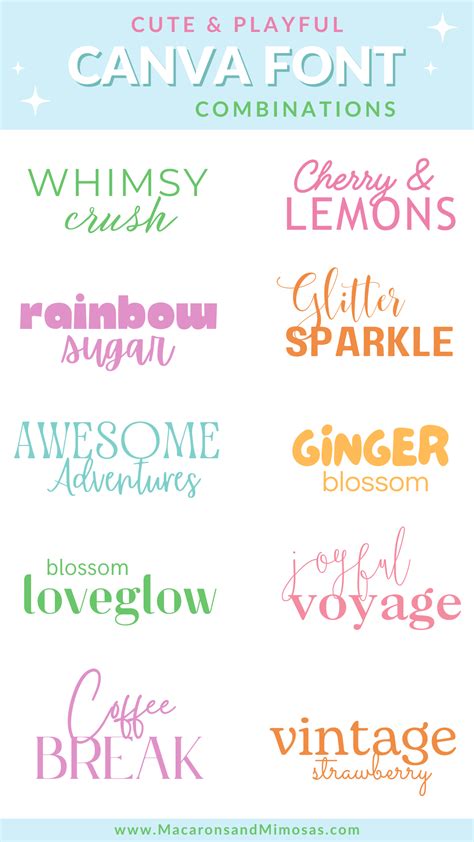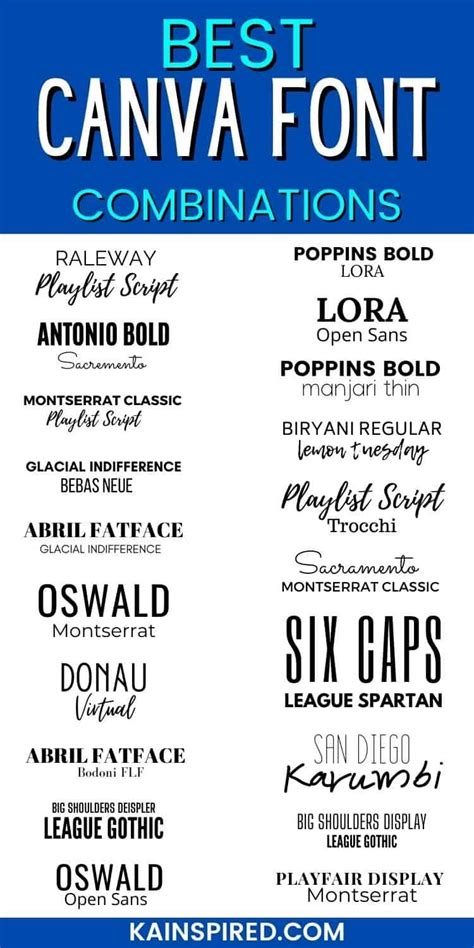
Best Canva Fonts Combinations For Stunning Designs
Readers, have you ever struggled to find the perfect font combination for your Canva designs? Choosing the right fonts can make or break a design, adding visual appeal and conveying the right message. But with so many options available, it can be overwhelming to know where to start.
Don't worry! We've analyzed countless Canva fonts and have the perfect combinations for you. We'll unlock the secrets to crafting stunning designs with the most compelling font pairings.
The Power of Canva Fonts: Unlocking Visual Harmony
Canva offers a vast library of fonts, categorized by style, weight, and character. Each font tells a unique story, impacting how viewers perceive your design. To create a visually captivating experience, you need to understand the language of fonts and pair them strategically.
Choosing the Right Font Combinations
Choosing the right font combination is essential to a balanced and cohesive design. Fonts speak volumes about your design’s personality and tone. Consider your target audience and the message you want to convey to select the right font pairs.
For instance, if you're designing a promotional poster for a tech event, a modern sans-serif font like Open Sans paired with a bold, geometric typeface like Roboto Slab can communicate innovation and tech-savvy.
Conversely, if you're creating a wedding invitation, an elegant serif font like Garamond with a flowing script font like Pacifico can exude romance and charm.
Understanding Font Types
Canva offers a wide variety of fonts, categorized into font families with distinct characteristics. Here are some key font types to consider:
- Serif Fonts: These fonts have small decorative strokes (serifs) at the ends of letter strokes. They generally convey a sense of tradition, elegance, and formality. Examples include Times New Roman, Garamond, and Georgia.
- Sans-serif Fonts: These lack the serifs, resulting in clean, minimalist designs. They often signify modernity, simplicity, and clarity. Examples include Arial, Helvetica, and Open Sans.
- Script Fonts: These fonts mimic handwritten calligraphy styles. They convey an air of elegance, sophistication, and personality. Examples include Pacifico, Lobster, and Allura.
- Display Fonts: These fonts are designed for large headlines or titles, often with dramatic flourishes and bold strokes. They add impact and evoke a strong visual presence. Examples include Bebas Neue, Impact, and Playfair Display.
Best Practices for Canva Font Combinations
Here are some best practices to keep in mind when pairing Canva fonts:
- Contrast: Create visual interest by pairing contrasting font types, like a serif with a sans-serif. This creates a balanced and harmonious design.
- Hierarchy: Establish a clear visual hierarchy by using different font sizes and weights to emphasize key elements. Larger, heavier fonts are typically used for headlines, while smaller, lighter fonts work well for body text.
- Readability: Prioritize readability. Ensure that your font combinations are easily readable, especially for body text. Avoid overly decorative or ornate fonts that can strain the reader's eyes.
- Experiment: Don't be afraid to experiment! Canva allows you to preview different font combinations directly on your design.
Essential Canva Font Combinations
Now, let's delve into some of the best Canva font combinations that are sure to elevate your designs:
Classic Elegance
For a timeless and sophisticated look, pair a classic serif font like Garamond with a modern sans-serif font like Roboto. This combination exudes elegance while maintaining a touch of contemporary flair.
Use Garamond for your headlines and Roboto for body text to create a balanced design. This classic pairing works well for invitations, brochures, and marketing materials.
Modern Minimalism
If you're going for a clean and contemporary aesthetic, Open Sans paired with Poppins is a winning combination. Both fonts are known for their readability and versatility, making them perfect for websites, social media graphics, and presentations.
Use Open Sans for larger headlines to create a bold statement, and Poppins for body text to maintain a clean and modern look.
Bold and Playful
For designs that demand attention, Bebas Neue paired with Playfair Display is a dynamic choice. Bebas Neue's bold, geometric style adds impact to headlines, while Playfair Display's elegant cursive style adds a touch of playfulness to subheadings and body text.
This combination works well for posters, flyers, and social media banners. It's perfect for conveying a message that is both bold and exciting.
Beyond the Basics: Exploring Complementary Fonts
While pairing two fonts is common, you can explore the power of three fonts! This strategy creates visual variety and layers a dynamic sense of visual interest. For example, you could use a serif font for headlines, a sans-serif font for subheadings, and a script font for accents or calls to action.
Canva's font library empowers you to create stunning designs that communicate your message effectively. Mastering the art of font combinations will elevate your designs and make them stand out from the crowd.